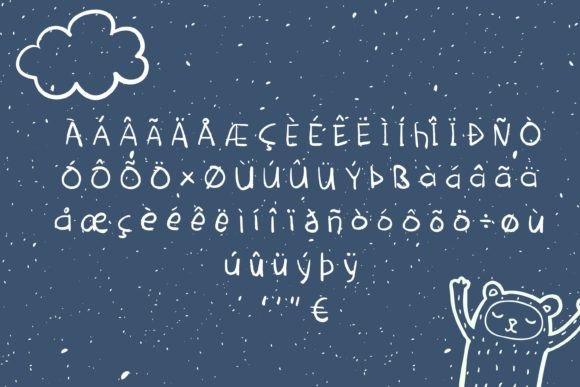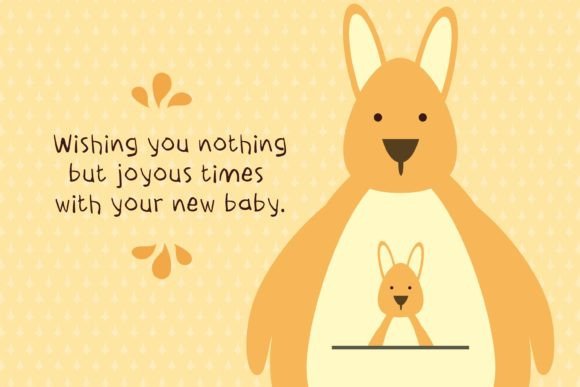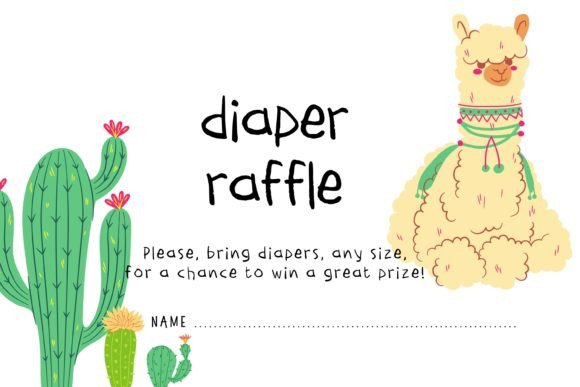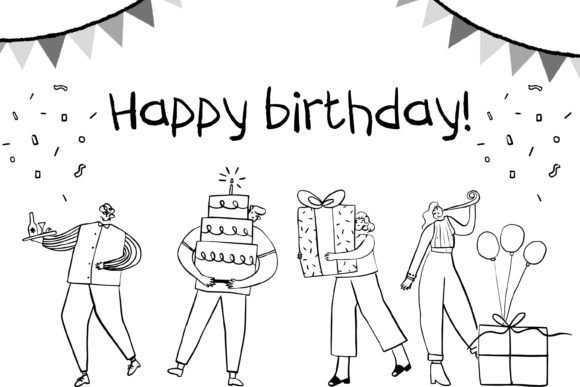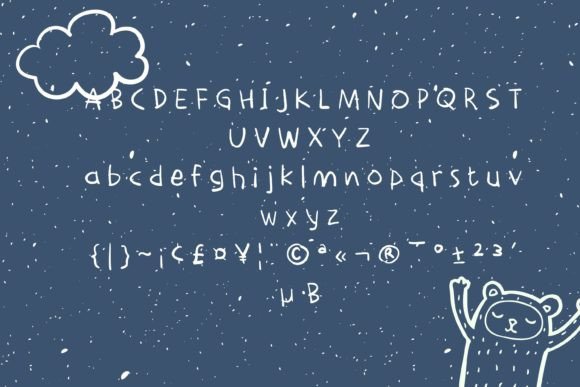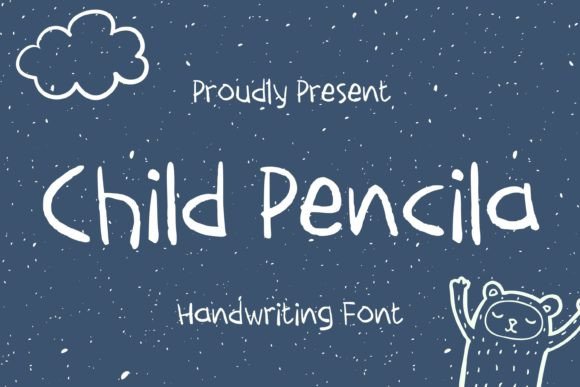
Introducing Child Pencila Font: The Ultimate Handwritten Font for Creative Designs
Are you a designer, crafter, or DIY enthusiast looking for a font that can add a touch of whimsy and playfulness to your projects? Look no further than Child Pencila Font! This adorable handwritten font is perfect for creating a wide range of designs, from cute and quirky to elegant and sophisticated.
What Makes Child Pencila Font So Special?
Child Pencila Font is a one-of-a-kind handwritten font that boasts a natural and unique style. Its friendly and approachable vibe makes it incredibly versatile, allowing you to use it for a vast array of design projects. Whether you’re creating:
- Children’s books and educational materials
- Crafting and DIY tutorials
- Branding and packaging designs
- Invitations and party decorations
The only limit to what you can create with Child Pencila Font is your imagination!
Key Features of Child Pencila Font
So, what sets Child Pencila Font apart from other fonts? Here are just a few of its key features:
- Cute and friendly style: Child Pencila Font has a warm and inviting personality that’s sure to delight audiences of all ages.
- Natural and unique: This font’s handwritten style gives it a distinctive and authentic feel that’s perfect for creating one-of-a-kind designs.
- Highly versatile: Child Pencila Font can be used for a wide range of design projects, from digital to print.
- Easy to read: Despite its playful style, Child Pencila Font is clear and easy to read, making it perfect for body text and headings.
How to Use Child Pencila Font in Your Designs
Ready to get creative with Child Pencila Font? Here are a few ideas to get you started:
- Create a children’s book: Use Child Pencila Font to bring your story to life with cute and colorful illustrations.
- Design a party invitation: Add a playful touch to your party invitations and decorations with this adorable font.
- Make a social media graphic: Use Child Pencila Font to create eye-catching social media graphics that will make your followers smile.
- Develop a brand identity: Child Pencila Font can add a touch of whimsy and friendliness to your brand’s logo and packaging.
Tips and Tricks for Getting the Most Out of Child Pencila Font
To help you get the most out of Child Pencila Font, here are a few tips and tricks:
- Experiment with colors: Child Pencila Font looks great in a variety of colors, so don’t be afraid to get creative and try out different hues.
- Mix and match with other fonts: Pair Child Pencila Font with other fonts to create a unique and visually appealing design.
- Use it for headings and body text: Child Pencila Font is clear and easy to read, making it perfect for both headings and body text.
| Font Name | Child Pencila Font |
| Author | nuraisyahamalia1729 |
In conclusion, Child Pencila Font is a versatile and adorable handwritten font that’s perfect for designers, crafters, and DIY enthusiasts. Its natural and unique style makes it incredibly fitting for a wide range of design projects, from children’s books to social media graphics. With its friendly and approachable vibe, Child Pencila Font is sure to delight audiences of all ages. So why wait? Get your hands on Child Pencila Font today and start creating wonderful designs!